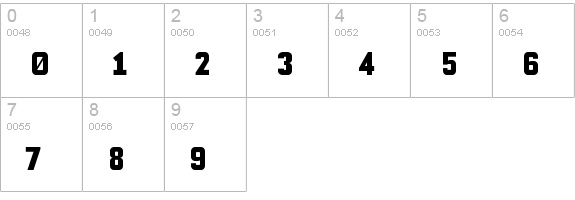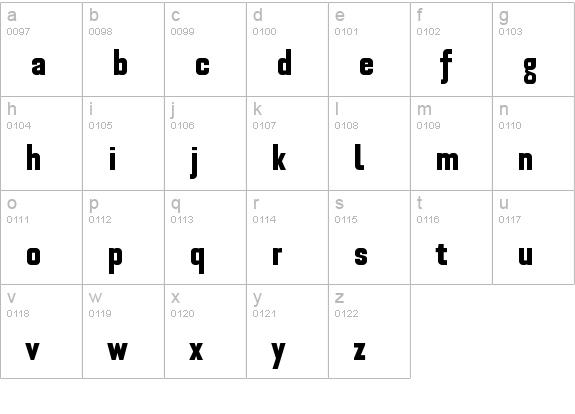
Bourgeois UltraCond Font Details
Bourgeois UltraCond font is a sleek and elegant typeface that exudes sophistication and modernity. With its condensed design and sharp lines, this font is perfect for adding a touch of luxury to any project. Whether you're designing a high-end brand identity or creating a stylish editorial layout, Bourgeois UltraCond will elevate your work to the next level. And the best part? Bourgeois UltraCond font is available for free download at FontsMarket.com. So you can add this premium font to your collection without breaking the bank. Don't miss out on the opportunity to enhance your designs with the exquisite beauty of Bourgeois UltraCond. Download it today and take your typography to new heights.